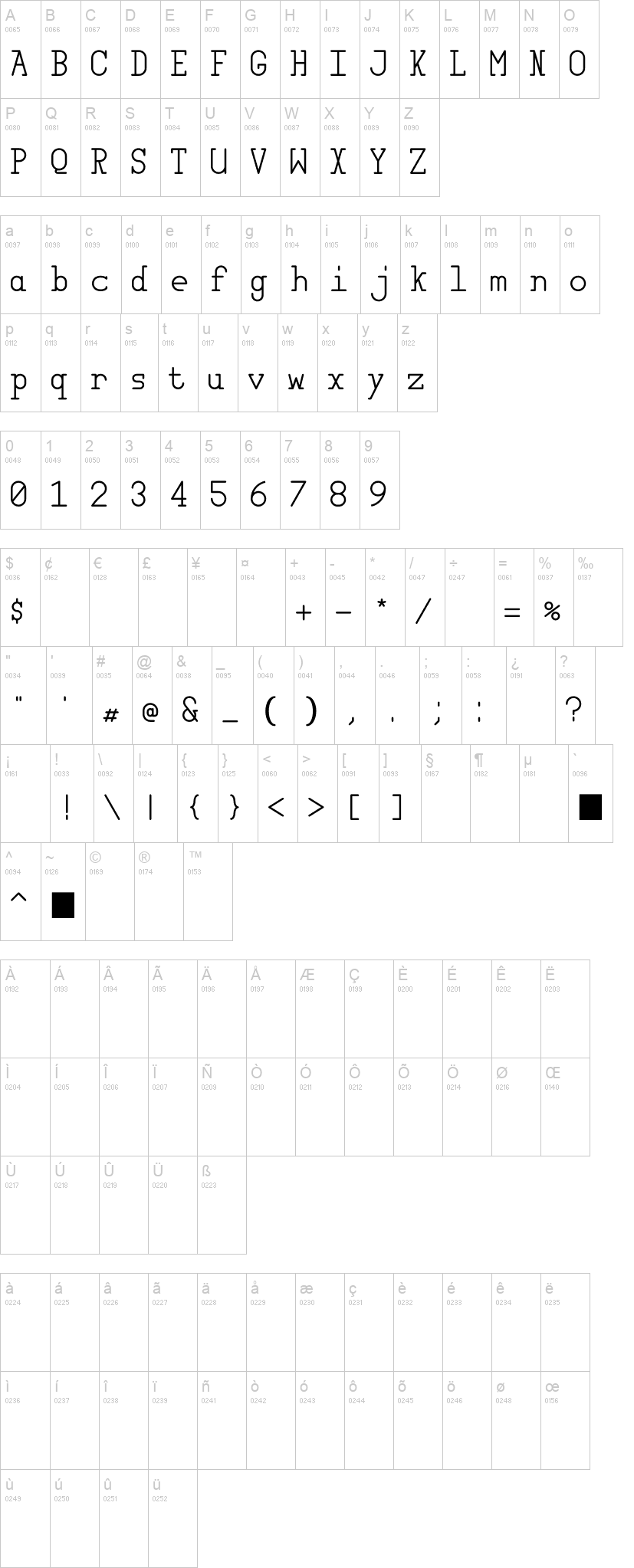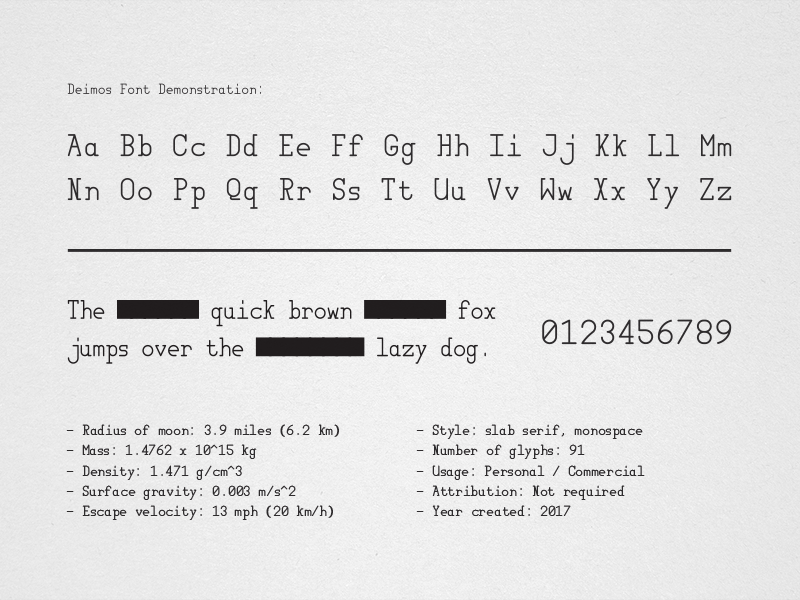
Deimos
Matt Wilson
Inspired by old computer terminals, classic monospace fonts, and the dark corners of space. This font was named after the smaller moon of Mars.